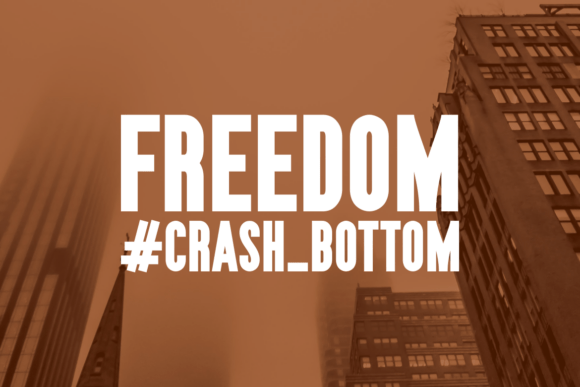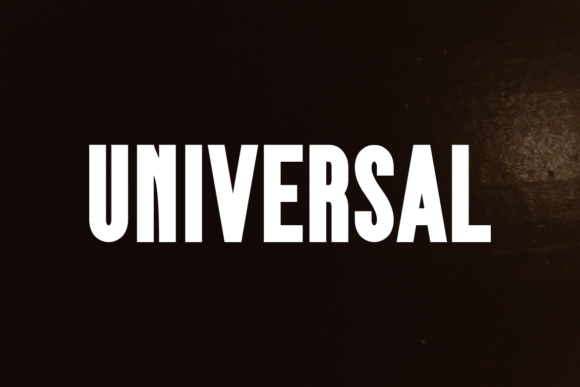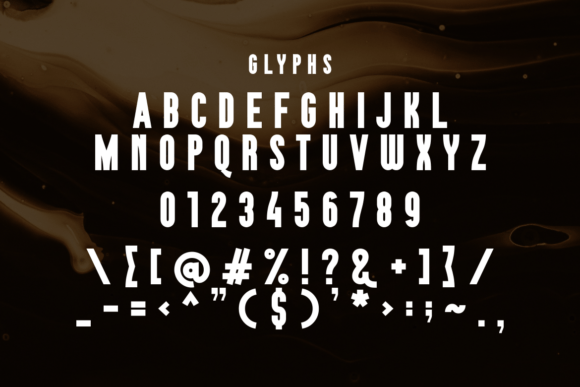
Squde Castalunia Font
Introducing Squde Castalunia, a distinctive serif-display font that merges timeless grace with a daring contemporary edge. This meticulously designed font boasts pronounced serifs, chic curvature, and well-crafted letterforms, adding an air of luxury and aesthetic appeal to any design. Perfect for high-grade branding, intricate editorial layouts, high fashion, and premium packaging projects, Squde Castalunia seamlessly infuses elegance and allure. This font commands attention as a headline star without compromising its refined charm. Choose Squde Castalunia when your typography needs to make a bold, yet tasteful statement.